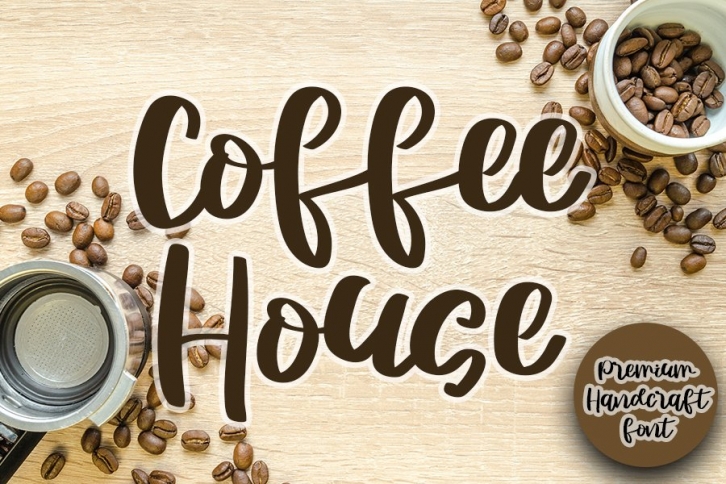
Coffee House is a trendy and unique font with an authentic style. It was designed by InermediaSTUDIO and it's a great choice for creative people who need such a font. It was released on September 22, 2020 and the file size is 21.55 MB. Coffee House will add an organic vibe to any design idea!